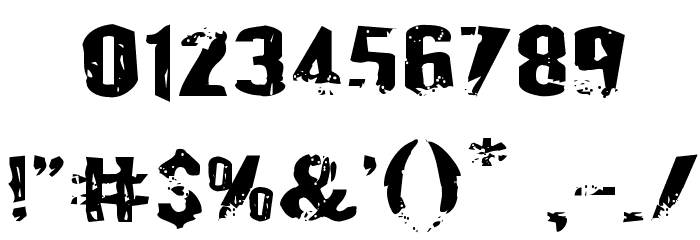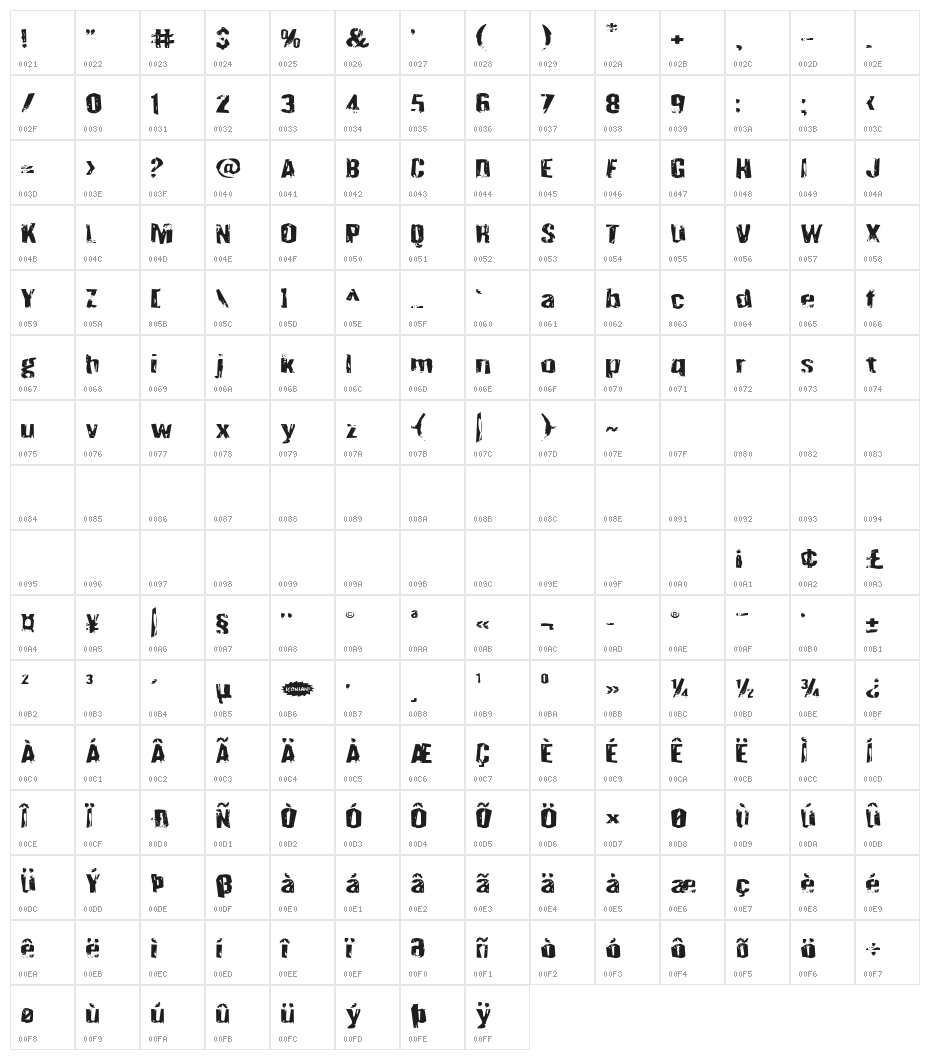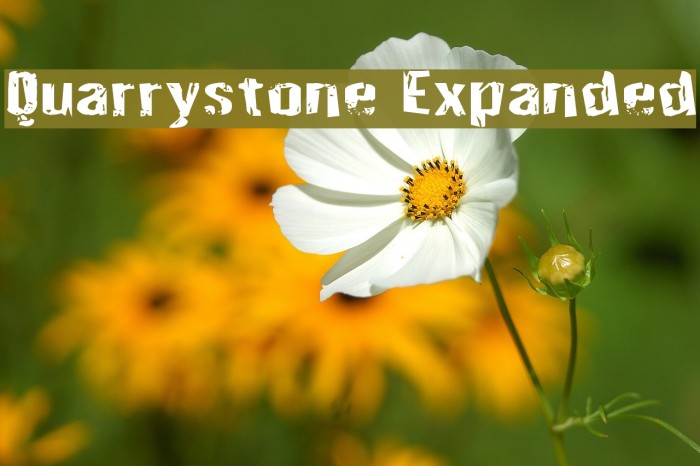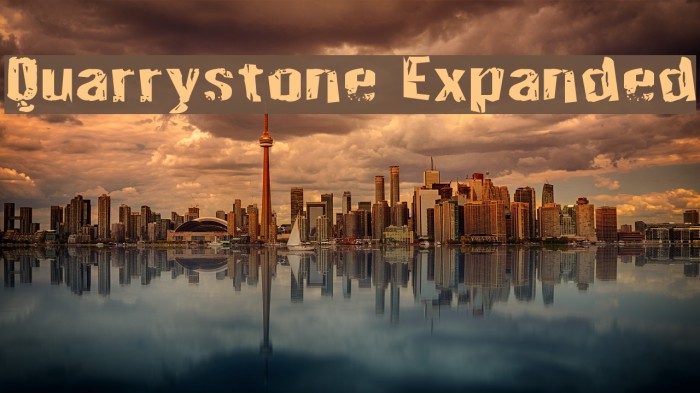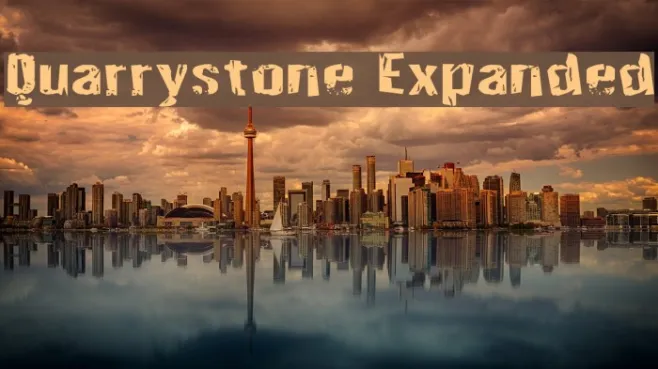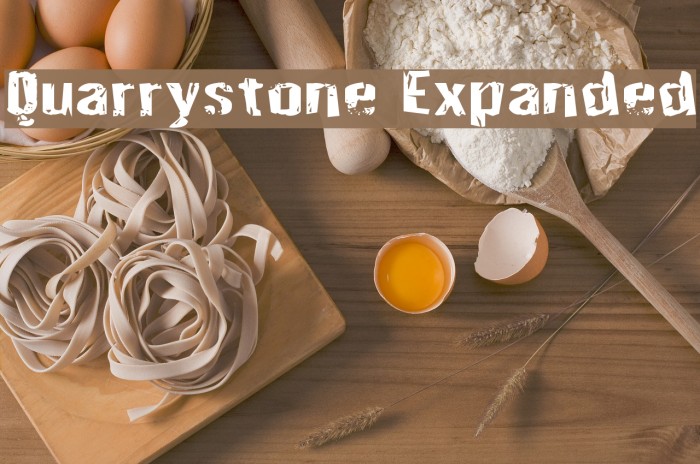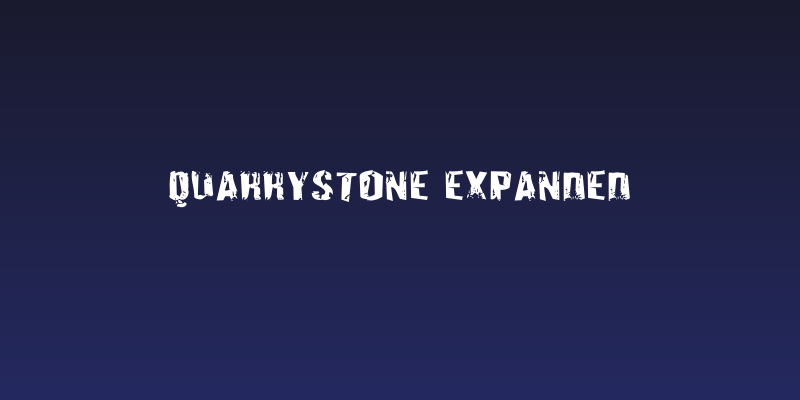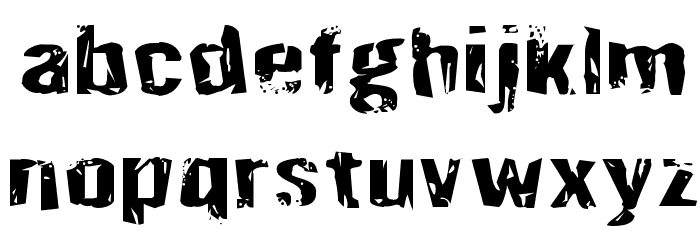
Quarrystone Expanded Font
Quarrystone Expanded Description
This font features a rugged and distressed appearance, reminiscent of weathered stone or eroded surfaces. The characters are bold and have an expanded width, giving them a strong presence. Each letter is uniquely textured, with irregular edges and a rough, gritty look that adds to its rustic charm. The uppercase and lowercase letters maintain a consistent style, while the numbers and special characters follow the same distressed theme. This font is ideal for projects that require a bold, eye-catching design with a touch of vintage or industrial flair.